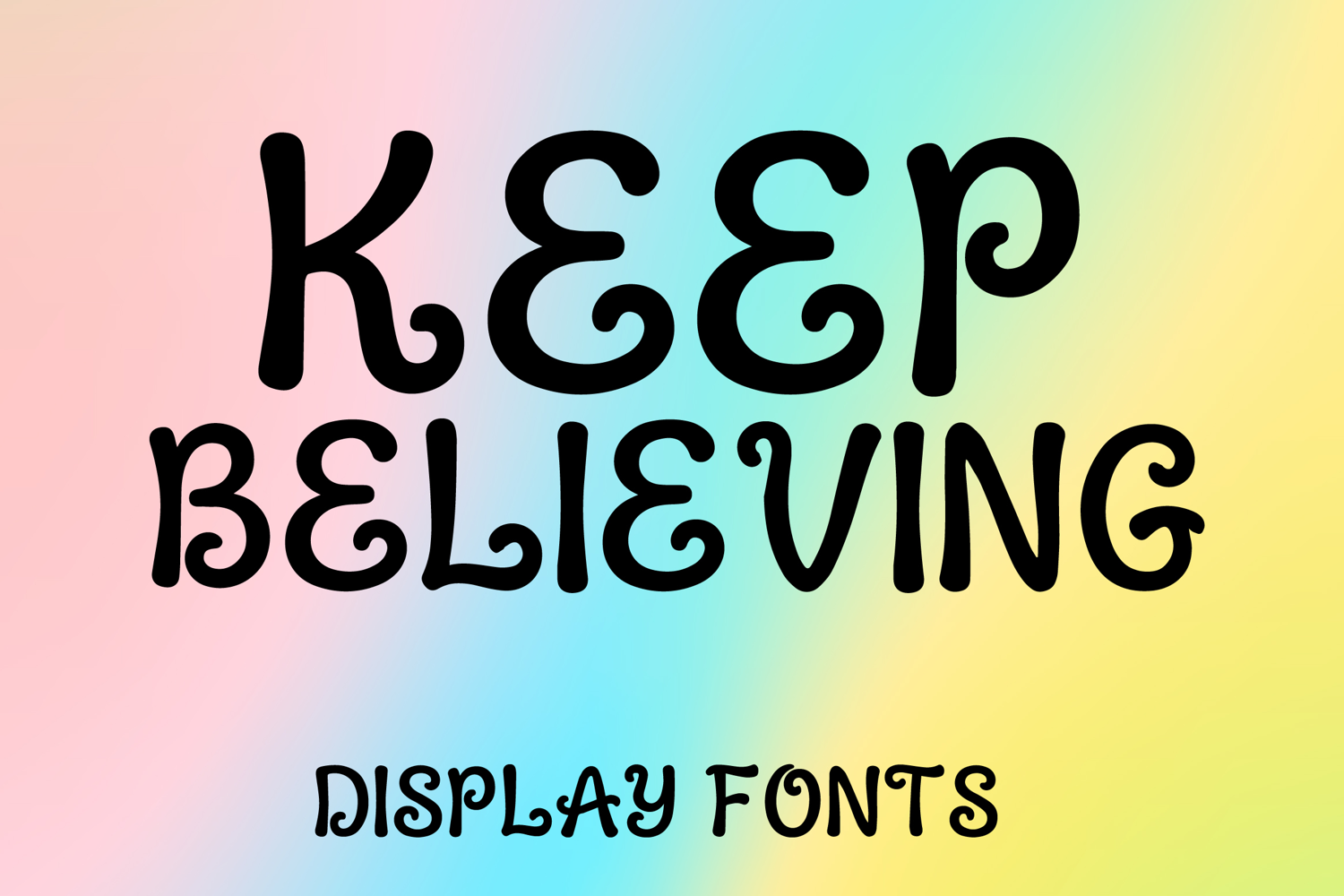
KEEP BELIEVING
KEEP BELIEVING is a whimsical decorative display font with a playful handcrafted style and uplifting artistic charm. Its uppercase letterforms feature rounded strokes, gentle spiral curls, and quirky organic details that create a warm, cheerful, and eye-catching look. Designed with uppercase letters A–Z and numbers 0–9, KEEP BELIEVING is perfect for branding, posters, packaging, invitations, quotes, social media graphics, and creative projects that need a joyful and memorable statement.